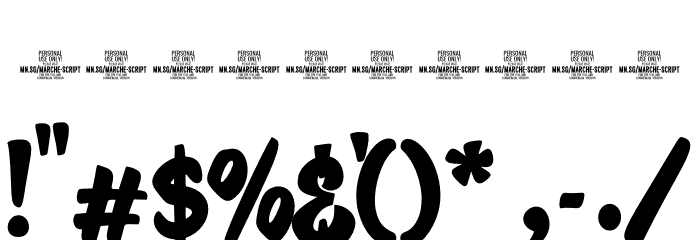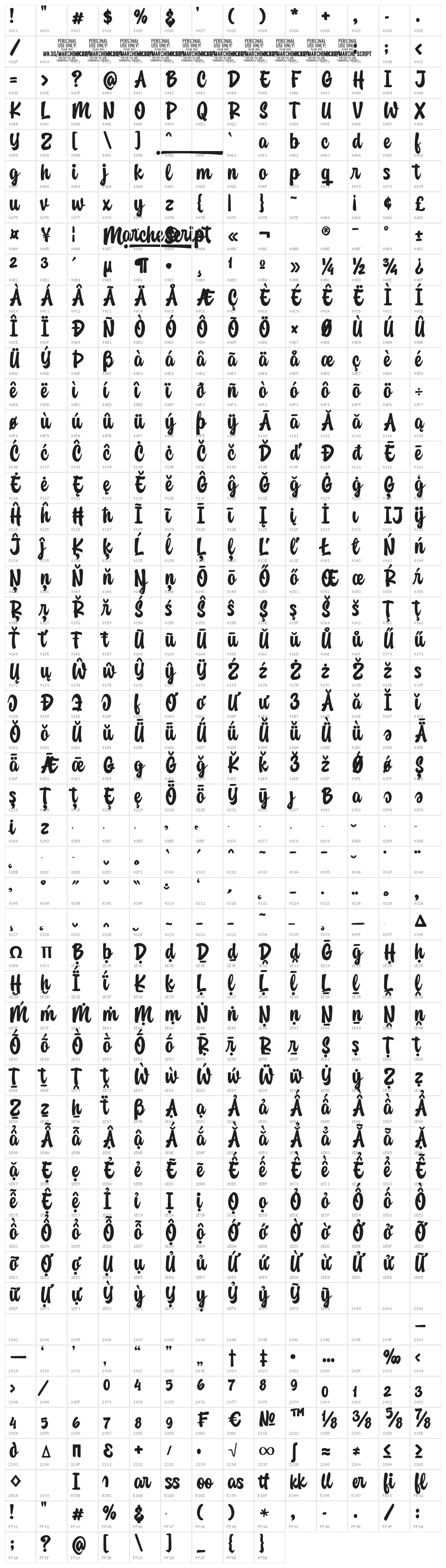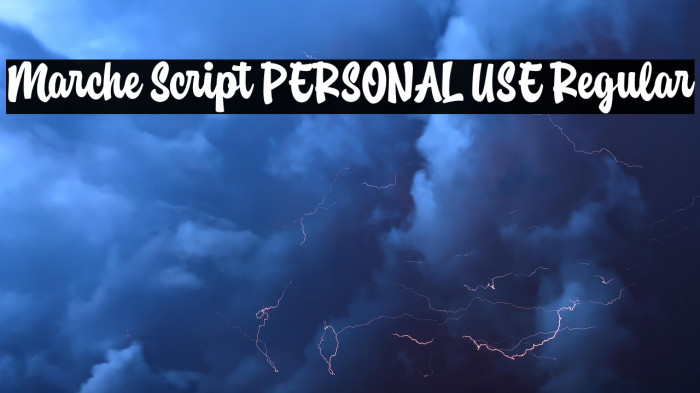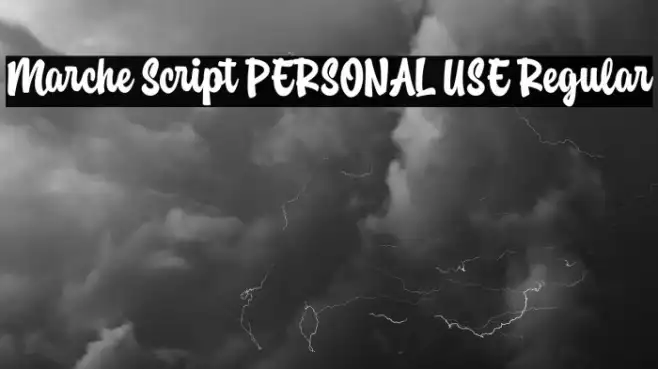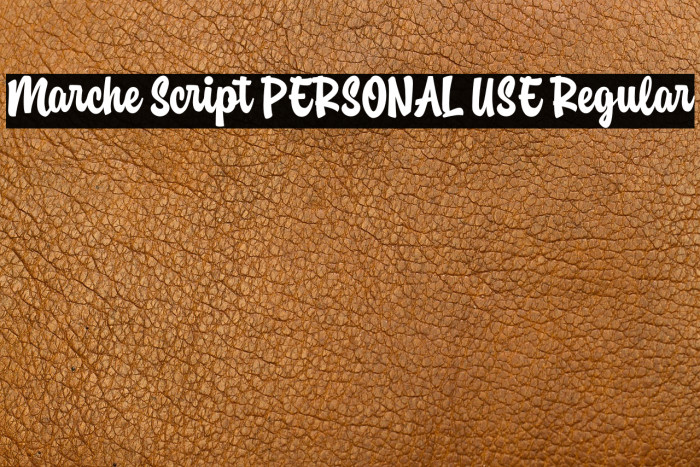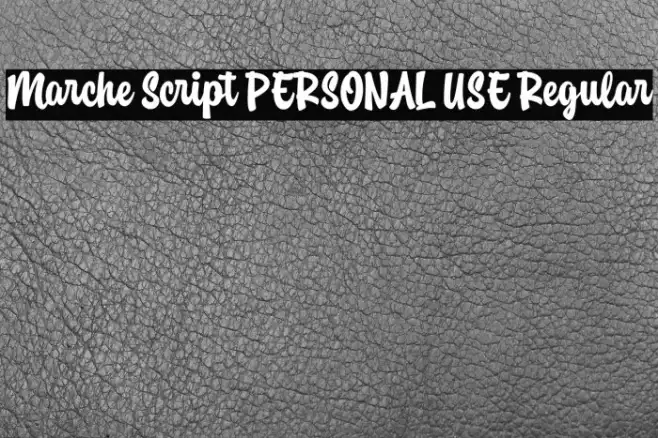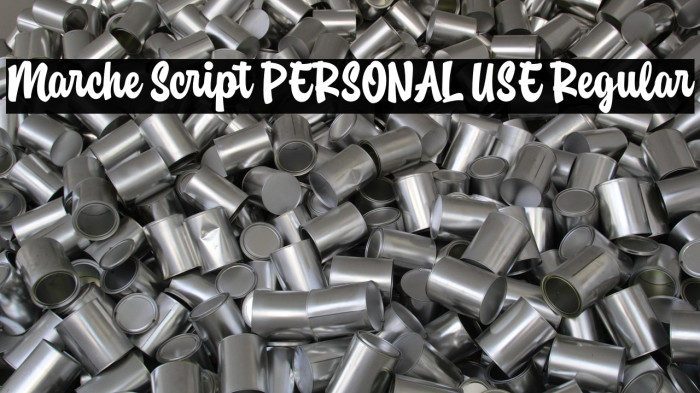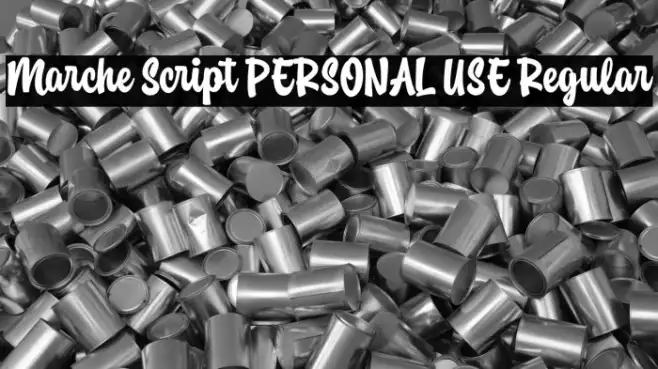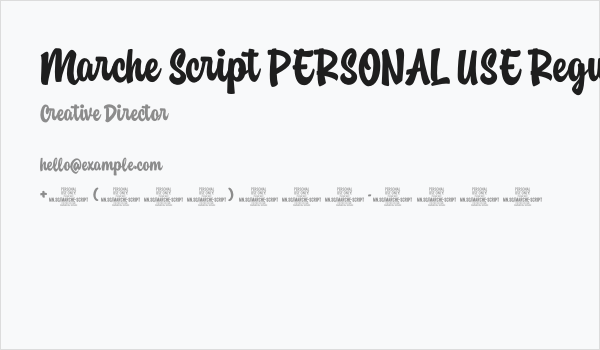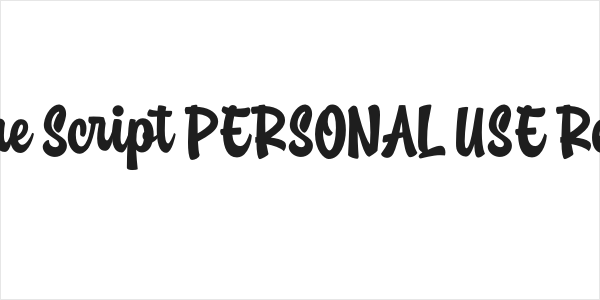
Marche Script PERSONAL USE Regular Font
Marche Script PERSONAL USE Regular Description
This font features a bold and expressive script style, characterized by its flowing, cursive letterforms that convey a sense of elegance and dynamism. The uppercase letters are bold and prominent, while the lowercase letters maintain a consistent flow, enhancing readability. The overall design is smooth with rounded edges, giving it a friendly and approachable appearance. The numerals and special characters are designed to match the script's fluidity, ensuring a cohesive look across all text elements. This font is ideal for projects that require a personal touch or a sense of creativity and flair.